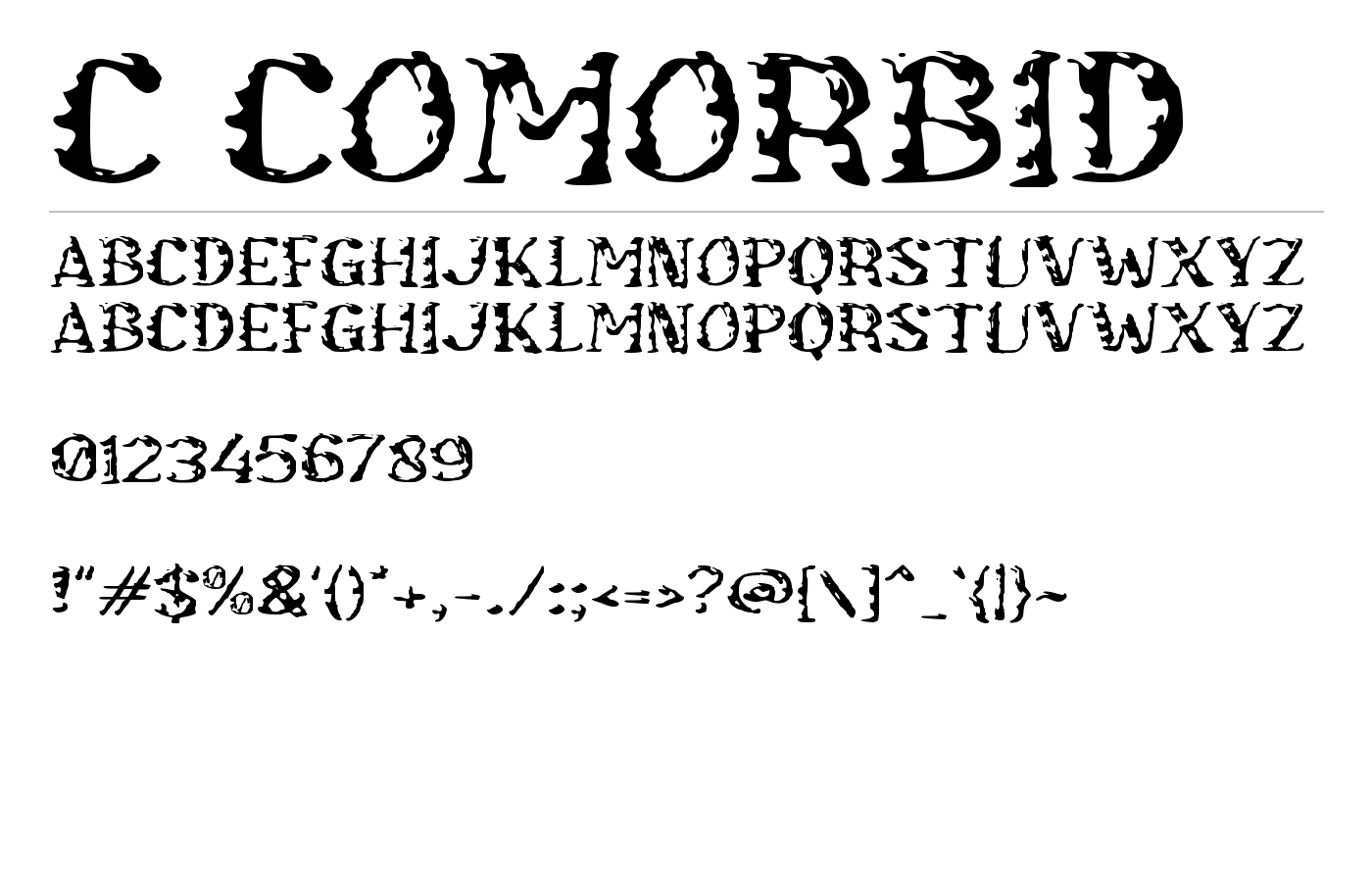
C Comorbid is a bold, decorative serif font with a distressed, rough texture that gives it a spooky and eerie vibe. Its uneven edges and organic shapes make it ideal for Halloween-themed designs, horror posters, or any project needing a dramatic, unsettling look. This font stands out in large headlines or display text where its unique personality can shine.
c Comorbid Font